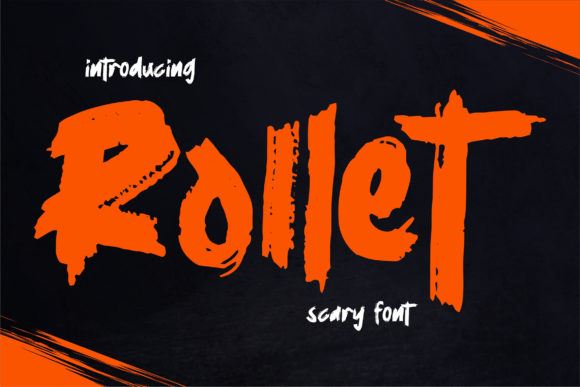
Journey into the world of Rollet: A display font that exudes boldness and drama. Unleash the captivating power of this typeface, meticulously crafted by the font artisans at Vunira, as it takes your designs to haunting new heights.
Rollet's striking presence commands attention, demanding it from every corner of your design. Whether you're conjuring spine-tingling graphics for Halloween posters or crafting uniquely ghoulish logos, Rollet's rough texture and eerie charm will leave an unforgettable impression.
This font is the ultimate companion for graphic designers who dare to venture into the realm of the macabre. With its sharp edges and menacing curves, Rollet's characters dance across your designs like captivating specters, sure to cast a wicked spell on your audience.
So, embrace the darkness and let Rollet be your guide. Plunge into the abyss of creativity and manifest otherworldly designs that will send shivers down spines and awaken the restless spirits of inspiration. Dare to be hauntingly original. Dare to choose Rollet.
"Beware, mortal designers, for Rollet's allure is undeniable. Once you behold its dark beauty, there's no turning back. Embrace the haunting charm of Rollet and watch your creations transform into masterpieces of the macabre."